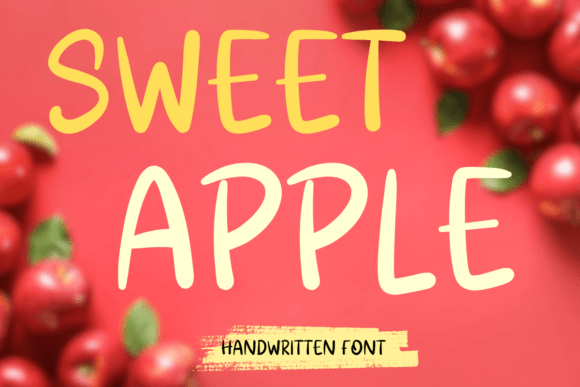
Feast your eyes on Sweet Apple Font, a delightful handwritten font crafted by Piyata Digital, that will add a touch of whimsy and charm to your creative endeavors. With its natural and unique style, this font family effortlessly captures the essence of playful elegance. Dive into the world of Sweet Apple Font and let your imagination run wild.
Express yourself with flair in your digital creations, be it social media posts, website designs, or eye-catching invitations. Sweet Apple Font's captivating charm breathes life into your words, making them dance off the screen with a captivating allure. Captivate your audience and leave a lasting impression.
Embark on a creative journey with Sweet Apple Font and explore limitless possibilities. Its carefully crafted letters, each a work of art, will elevate your artistic vision to new heights. From heartfelt handwritten notes to stunning logos that exude personality, Sweet Apple Font is your perfect companion.
Unleash your creativity and let your designs blossom with Sweet Apple Font. Its versatility knows no bounds, whether you're creating whimsical illustrations, enchanting logos, or personalized branding. Let your imagination soar and let Sweet Apple Font be your trusted partner in expressing your unique style.
Embrace the beauty of Sweet Apple Font and add a touch of magic to your designs. Every character, meticulously crafted, carries a story waiting to be told. Immerse yourself in the enchanting world of Sweet Apple Font and let your creativity thrive.